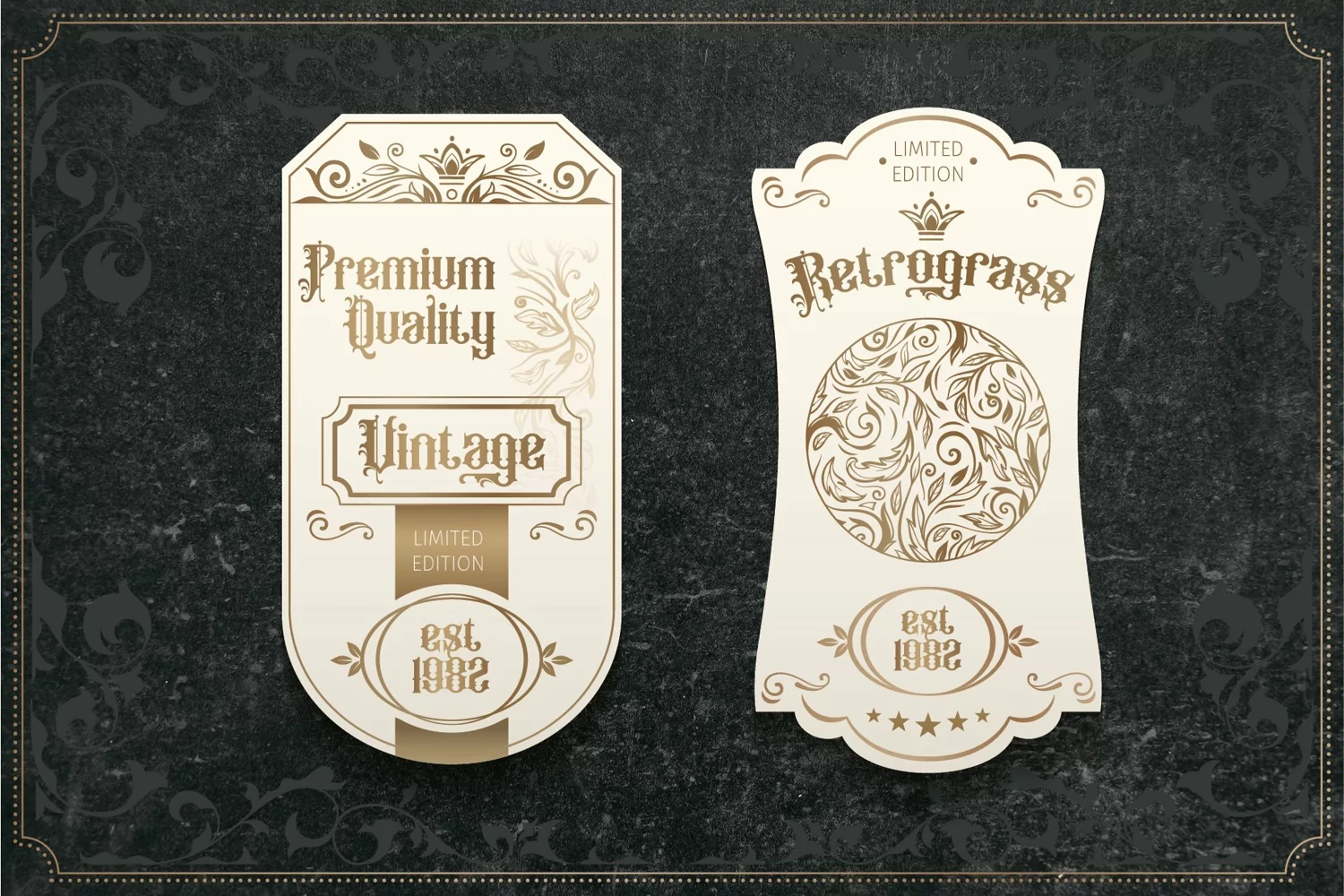
Xostle Hogh - Vintage Font
If you looking for strong font for display or title this item is a great choice to make your design authentic.
Xostle Hogh font has 200 character glyphs included the multilingual and alternate glyphs, the alternate glyphs will make your design more decorative.